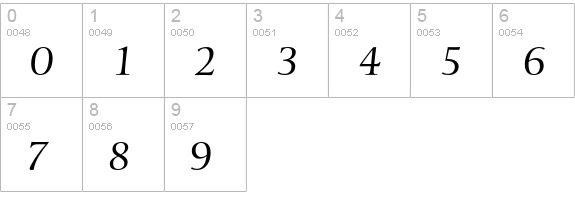
Mentor Light Italic is a refined, elegant, italic variant in the Mentor typeface family \xE2\x80\x94 well suited to elegant body text, refined sub-headings, and luxury branding.
Mentor Light Italic font embodies elegance and sophistication with its delicate and graceful letterforms. The italicized style adds a touch of modernity and flair, making it perfect for projects that require a refined and stylish look. Whether used for branding, editorial design, or any creative endeavor, Mentor Light Italic font exudes a sense of professionalism and finesse. Best of all, Mentor Light Italic font is available for free download at FontsMarket.com. This means you can easily access this exquisite typeface at no cost, making it a valuable addition to your font library. Embrace the beauty and versatility of Mentor Light Italic font in your next design project and elevate your work with its timeless charm.